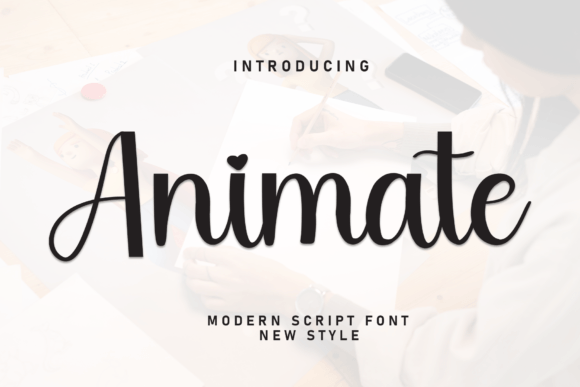
Introducing Animate Font: Add a Sweet and Friendly Touch to Your Designs
Are you looking for a font that can add a playful and whimsical touch to your designs? Look no further than Animate Font! This sweet and friendly handwritten display font is perfect for creating eye-catching wedding invitations, cards, and other designs that require a fun and personal touch.
What Makes Animate Font So Special?
Animate Font is a unique and charming font that is sure to capture the attention of your audience. Its handwritten style gives it a warm and approachable feel, making it ideal for designs that require a personal touch. Whether you’re creating wedding invitations, greeting cards, or social media graphics, Animate Font is the perfect choice.
Key Features of Animate Font
- Cute and Fun: Animate Font is a playful and whimsical font that is sure to add a smile to your audience’s face.
- Handwritten Style: Its handwritten style gives it a warm and personal feel, making it perfect for designs that require a touch of elegance and sophistication.
- Versatile: Animate Font is a versatile font that can be used for a wide range of designs, from wedding invitations to social media graphics.
- Easy to Read: Despite its playful style, Animate Font is easy to read and understand, making it perfect for designs that require a clear and concise message.
Animate Font is a perfect choice for designers and crafters who want to add a personal touch to their designs. Whether you’re creating digital or print designs, Animate Font is sure to impress. Its unique style and versatility make it an excellent addition to any design project.
Ideas for Using Animate Font
Animate Font is a versatile font that can be used for a wide range of designs. Here are some ideas to get you started:
- Wedding Invitations: Create beautiful and unique wedding invitations that will set the tone for the big day.
- Greeting Cards: Add a personal touch to your greeting cards with Animate Font’s playful and whimsical style.
- Social Media Graphics: Use Animate Font to create eye-catching social media graphics that will capture the attention of your audience.
- Party Invitations: Create fun and playful party invitations that will get your guests excited for the celebration.
Tips for Using Animate Font
Here are some tips for using Animate Font in your designs:
- Use it sparingly: Animate Font is a bold and playful font, so use it sparingly to avoid overwhelming your design.
- Pair it with other fonts: Pair Animate Font with other fonts to create a unique and visually appealing design.
- Experiment with colors: Animate Font looks great in a variety of colors, so experiment with different colors to find the perfect one for your design.
Animate Font is a sweet and friendly handwritten display font that is perfect for adding a playful and whimsical touch to your designs. Its unique style and versatility make it an excellent choice for designers and crafters who want to create eye-catching and personal designs. Whether you’re creating wedding invitations, greeting cards, or social media graphics, Animate Font is sure to impress.